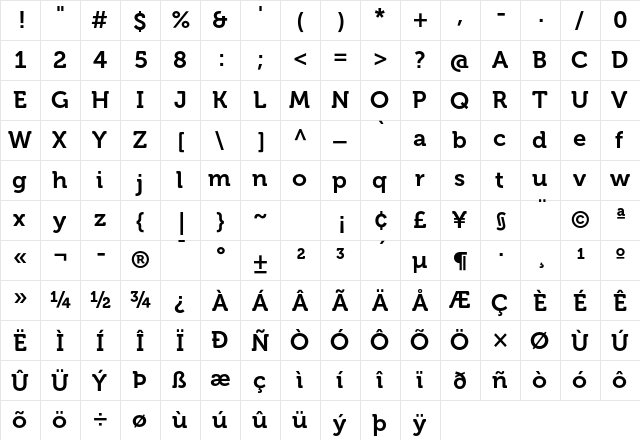
Museo 700
| Foundry | Jos Buivenga |
| Designer | Jos Buivenga |
Design Context for Museo Typeface
Museo offers clean, dependable letterforms without strong stylistic allegiance, making it a practical choice for designers who need flexibility.